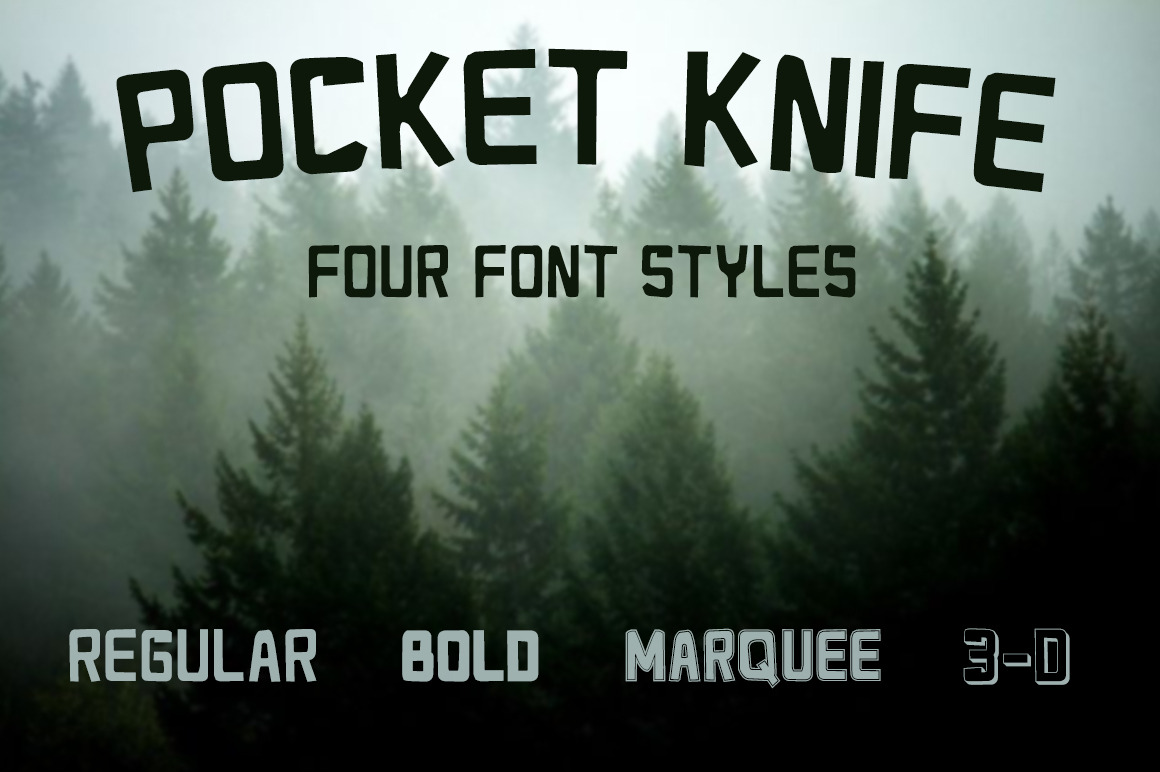
Pocket Knife - Font in Four Styles
Pocket Knife - an all caps display font in four styles. Versatile and handy - like a pocket knife. Stop carving your name in trees! Use this eco-friendly font instead!